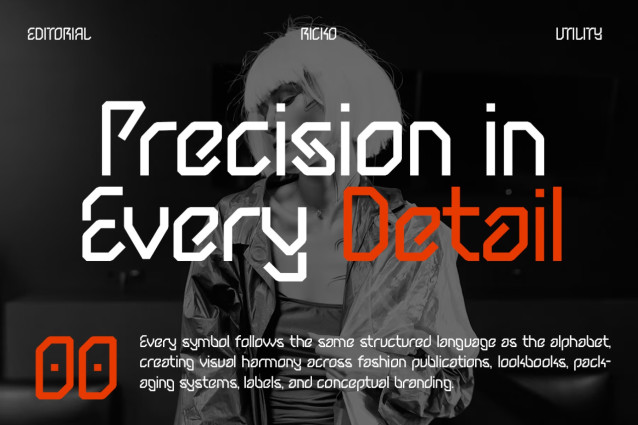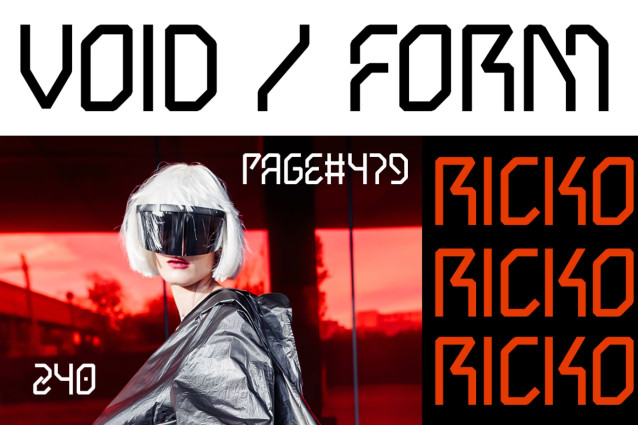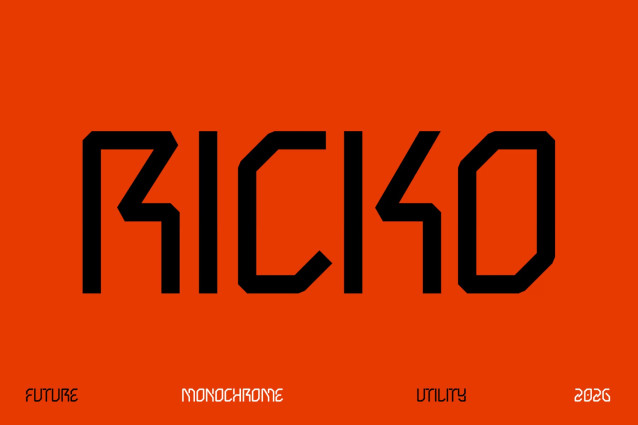
Modern Font RICKO introduces a bold geometric style that transforms futuristic concepts into striking visual statements. Rather than following conventional typography, RICKO combines modular construction, angular curves, and clean proportions to create a distinctive look that feels innovative and confident.
Moreover, its structured design adds rhythm and balance to every headline, while its futuristic details keep every composition fresh and memorable. As a result, your branding stands out with a sleek, high-tech personality. Furthermore, Multilingual Support for 67 languages lets you communicate consistently across global audiences without sacrificing style.